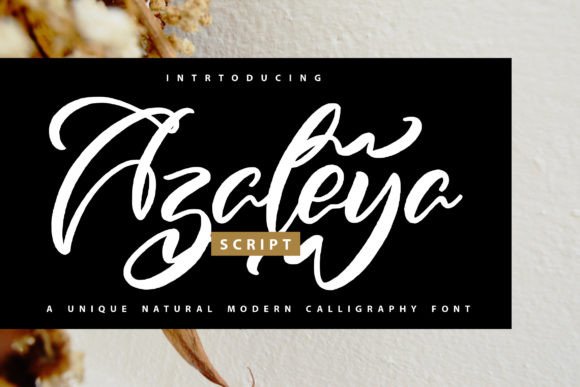
The Azaleya Font: A Stylish, Handwritten Script for Every Occasion
I’ll never forget the time I was working on a greeting card project for a friend’s birthday. I had all the design elements ready – the colors, images, and layout – but something was missing. The font I was using just didn’t feel right. It was too formal, too generic, and didn’t capture the friendly, playful vibe I was going for. That’s when I stumbled upon the Azaleya font, and it instantly became the perfect fit. In this article, I’ll share my experience with Azaleya, its features, and how you can make the most of it in your designs.
An Honest Review of Azaleya Font
Azaleya is a stylish, natural-looking handwritten script font that has quickly become a favorite in my design toolkit. Here’s what I love about it:
- ✨ Elegant and fluid strokes that give it a personal, hand-written feel
- 💫 Supports OpenType features, including glyphs and stylistic alternates, giving you plenty of creative options
- 🌈 Works beautifully for both digital and print designs
Like any font, Azaleya isn’t perfect. A few quirks to keep in mind:
- 🤔 It may not be the best choice for very long blocks of text, as its script nature can be a bit more challenging to read in large quantities
- ⚠️ Some users might find the font a bit too ‘loopy’ or cursive for certain design applications
The Story Behind Azaleya
Azaleya was inspired by the beauty of natural, effortless handwriting. Its designer sought to capture the fluidity and elegance of handwritten scripts, making it versatile enough for various design needs. Whether it’s for crafting beautiful presentations, creating heartfelt greeting cards, or enhancing digital content, Azaleya brings a personal touch that’s hard to replicate with more generic fonts.
Q: Is Azaleya suitable for body text?
A: While Azaleya is highly legible, its script nature makes it more suited for headings or short paragraphs. For longer texts, consider a more traditional serif or sans-serif font.